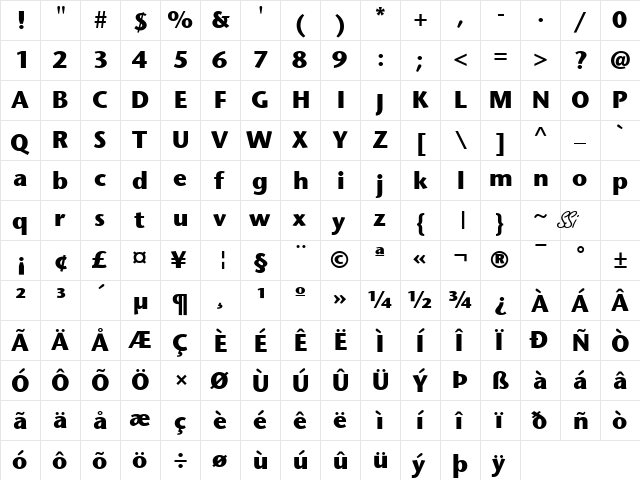
Mesouran Sans Black SSi Bold
Design Context for Mesouran Sans Black SSi Typeface
Mesouran Sans Black SSi takes a measured approach to typography — its balanced proportions and neutral character make it a reliable workhorse for both digital and print work. Its bold stroke weight gives it real presence on the page.